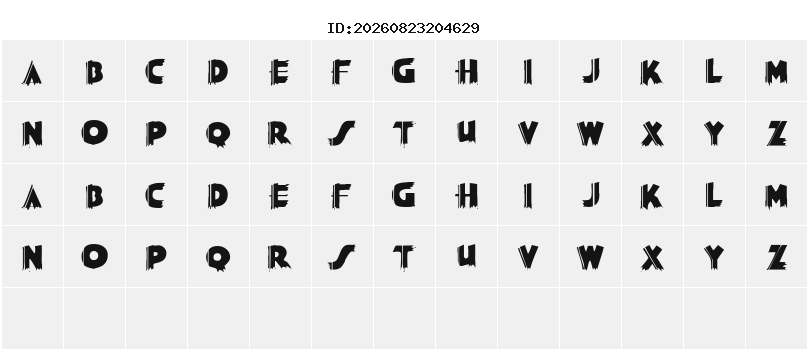
• Font Name: SashDisplayCaps
About SashDisplayCaps.ttf
SashDisplayCaps.ttf is a modern, elegant sans-serif font designed for ultimate readability and visual harmony. Perfect for branding, headlines, web design, and print materials.